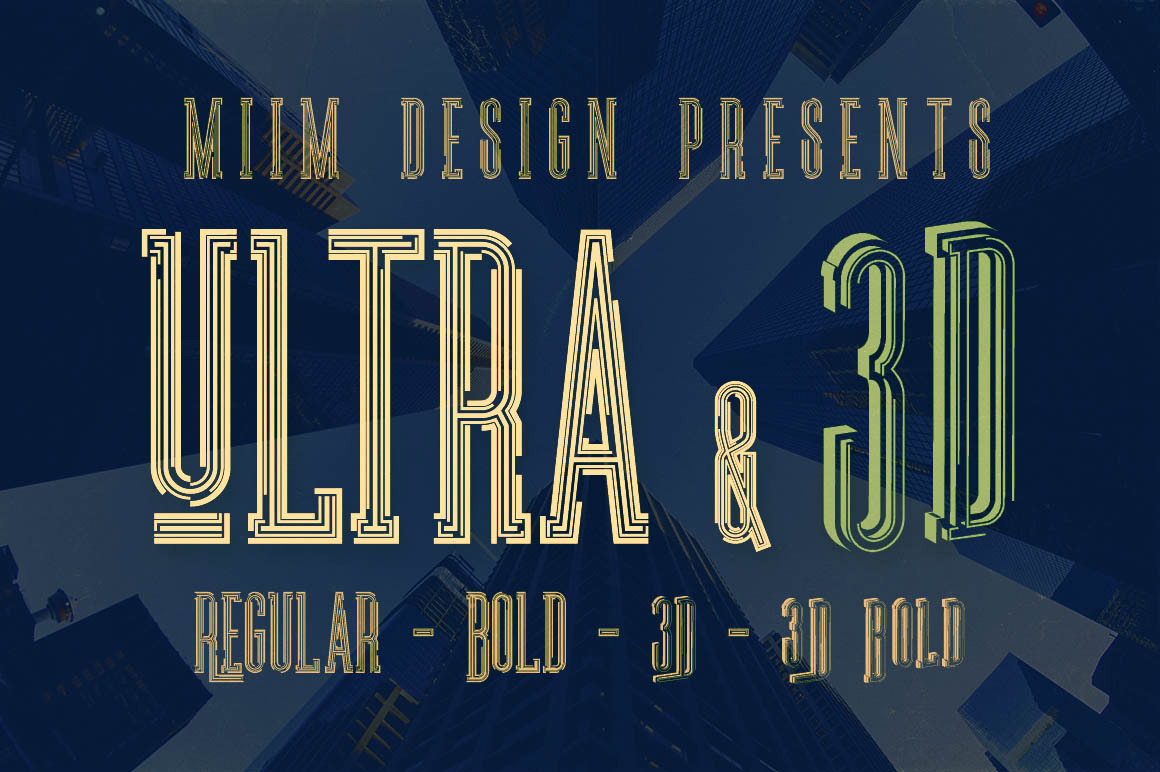
Ultra - Modern Font
Creative, modern & futuristic font for your new projects. Great for modern or futursitic style projects! Also 2 styles with 3D effect...